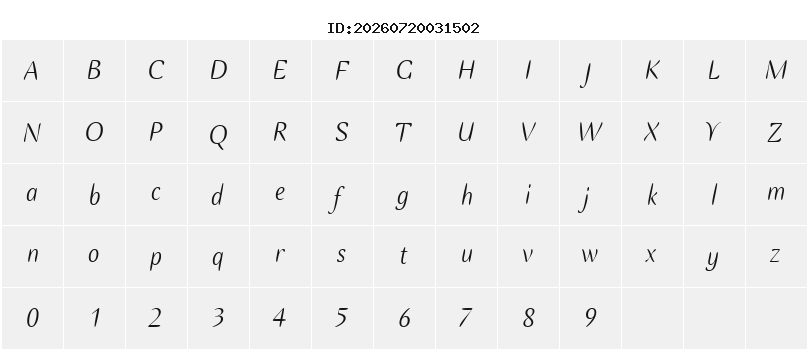
• Font Name: Ellipse ITC TT
• Font ID: Ellipse ITC TT Italic
• Full Font Name: Ellipse ITC TT Italic
• PostScript Name: EllipseITCTT-Italic
About Ellipse ITC TT.ttf
Ellipse ITC TT.ttf is a modern, elegant sans-serif font designed for ultimate readability and visual harmony. Perfect for branding, headlines, web design, and print materials.